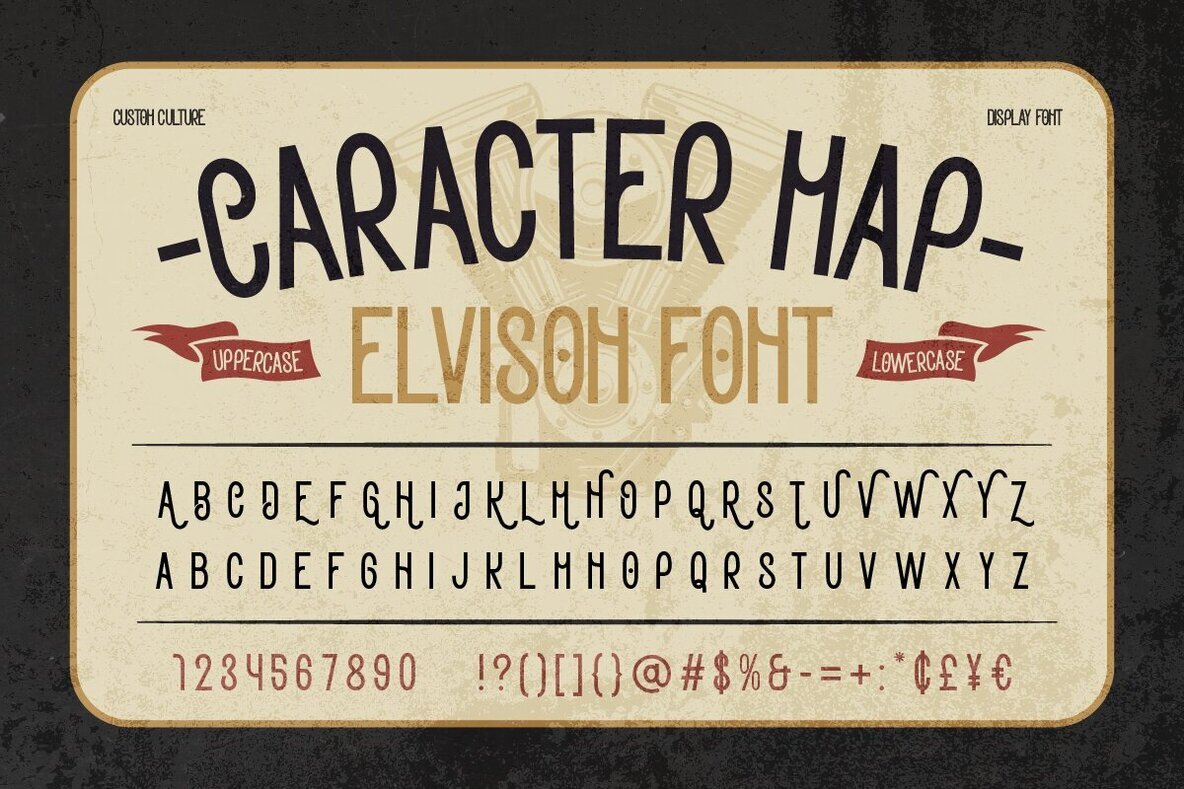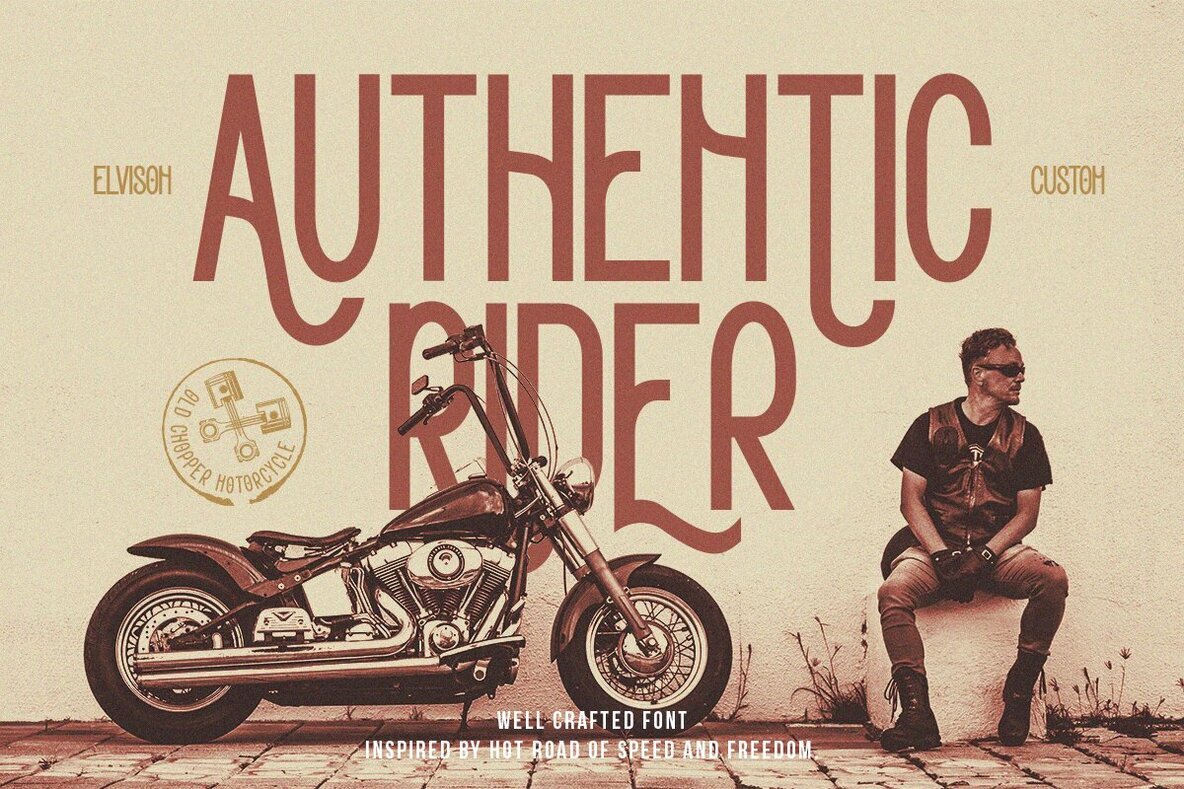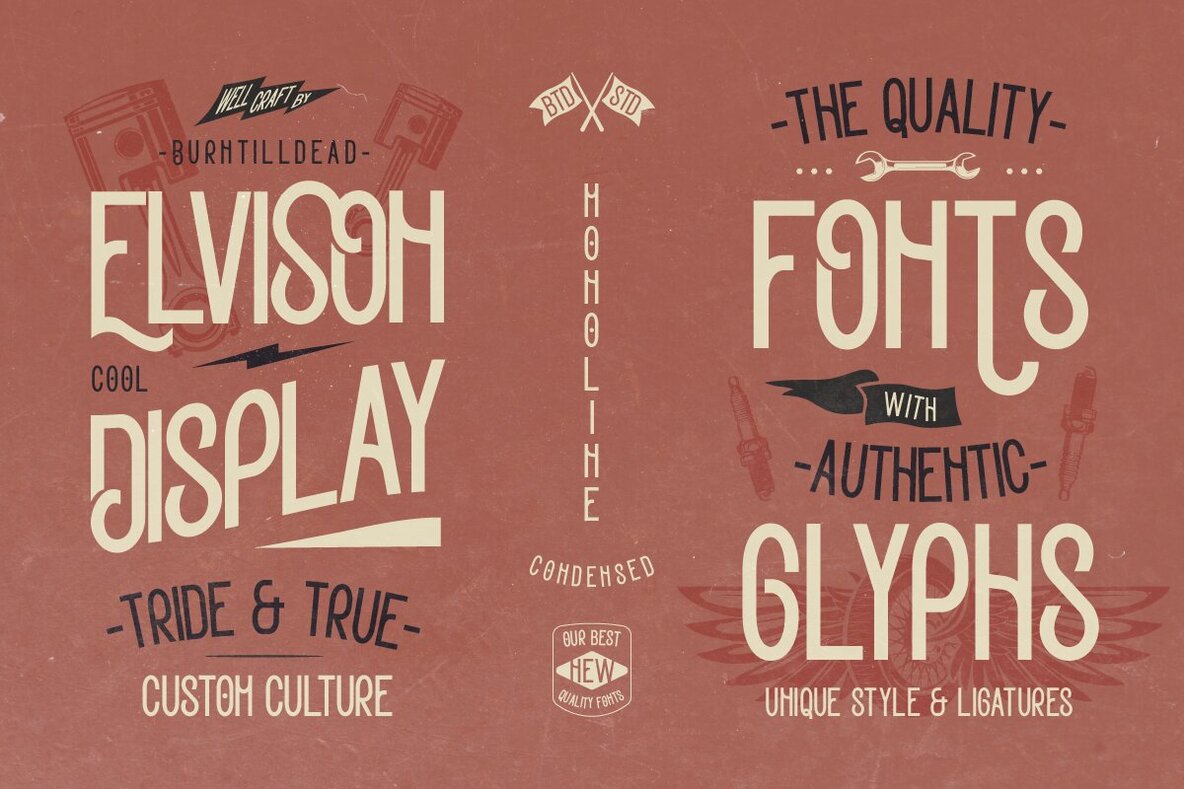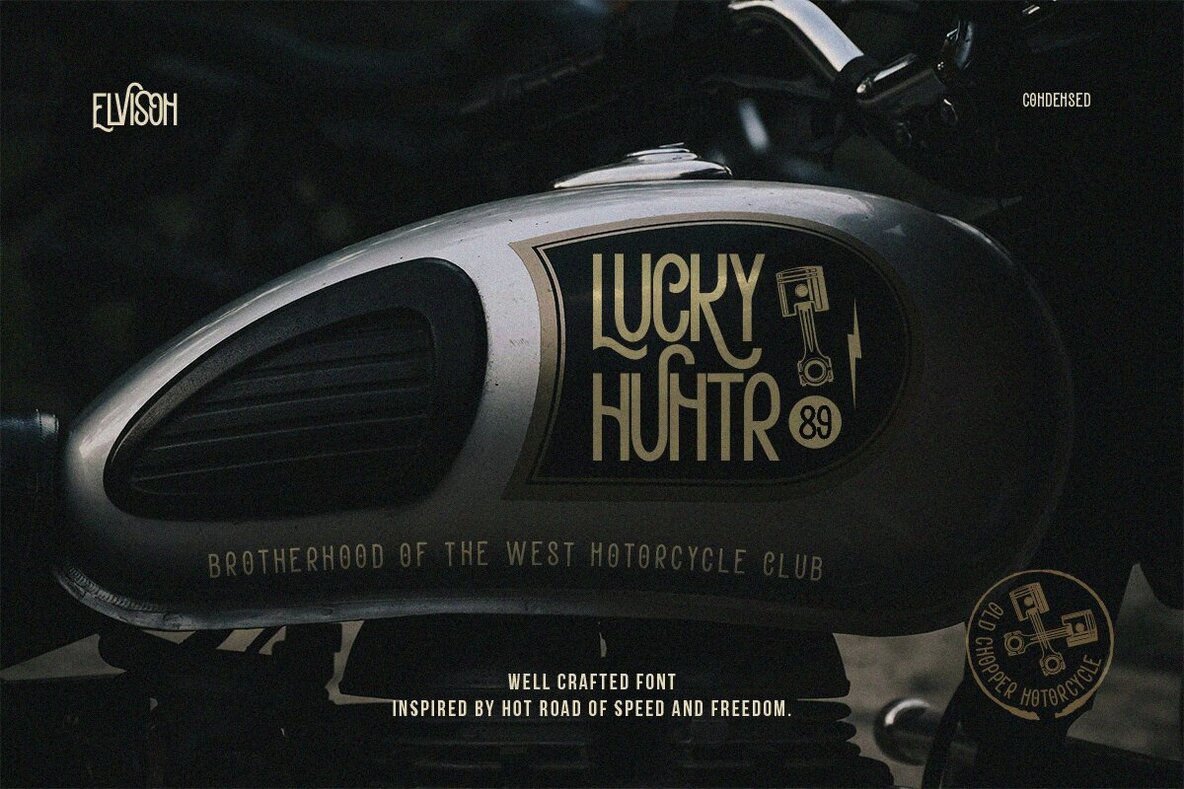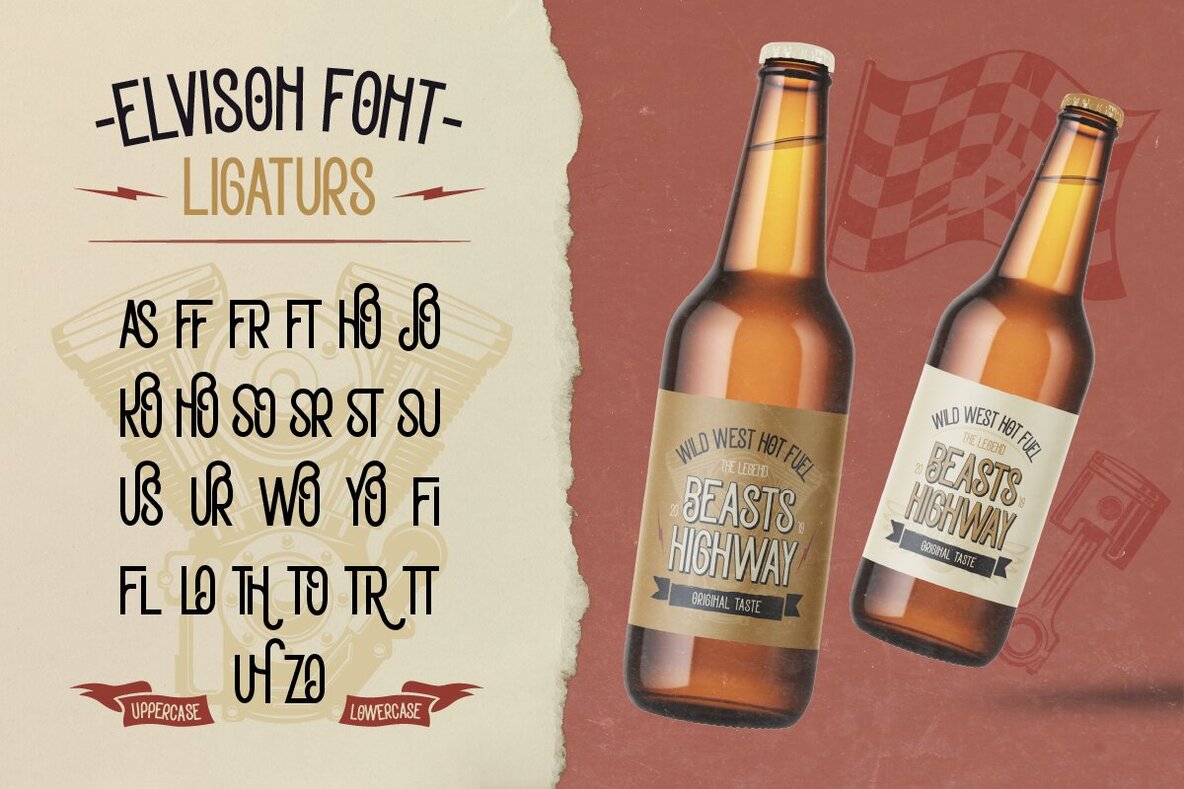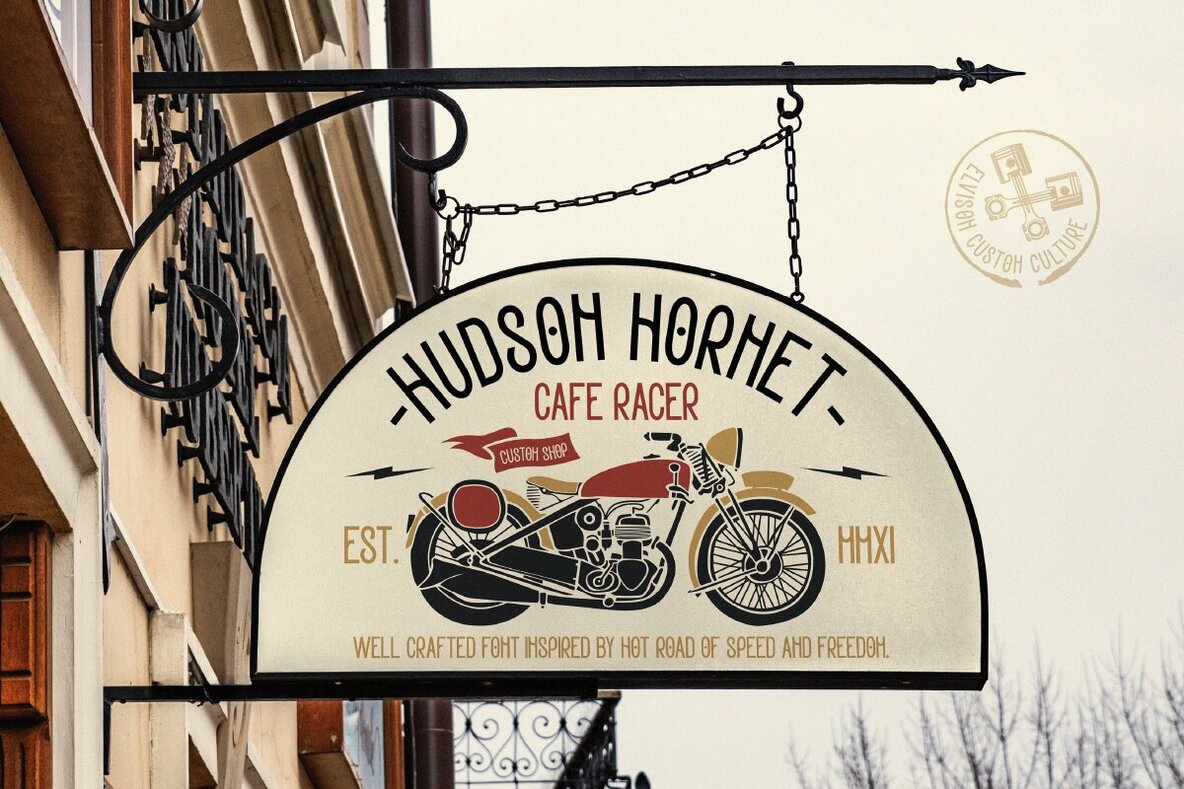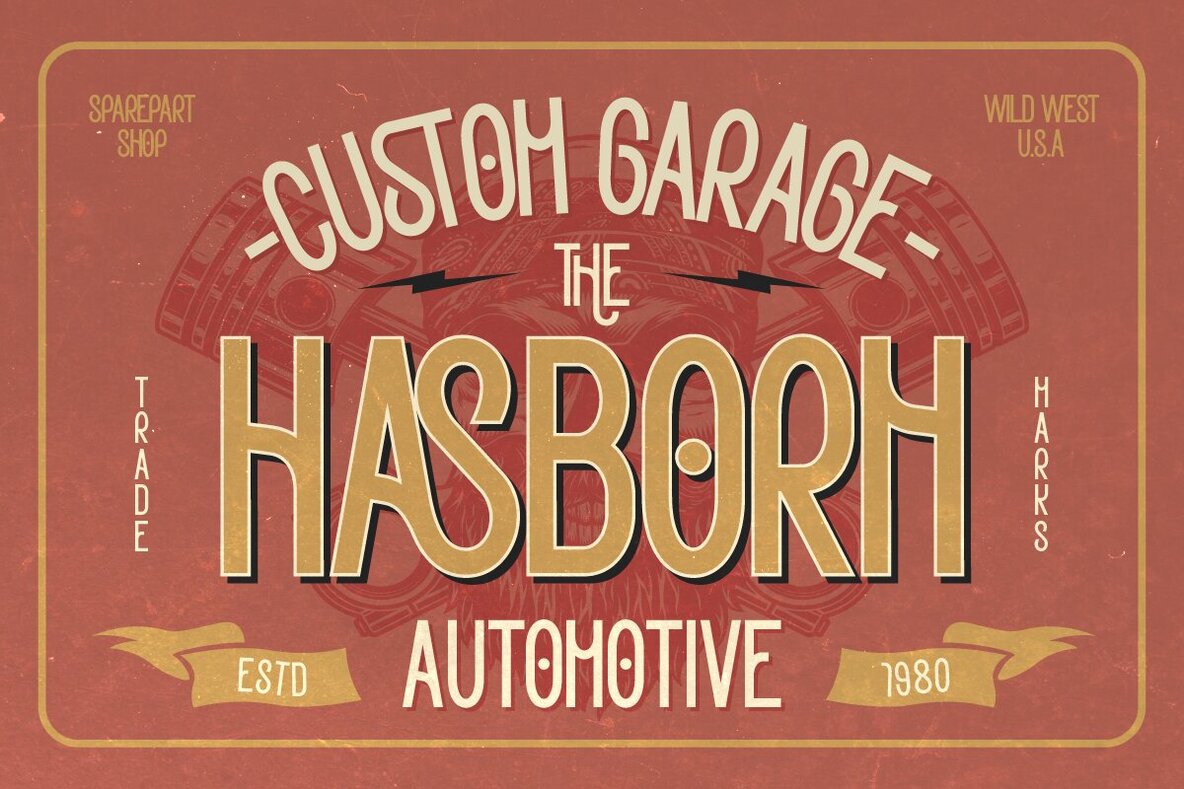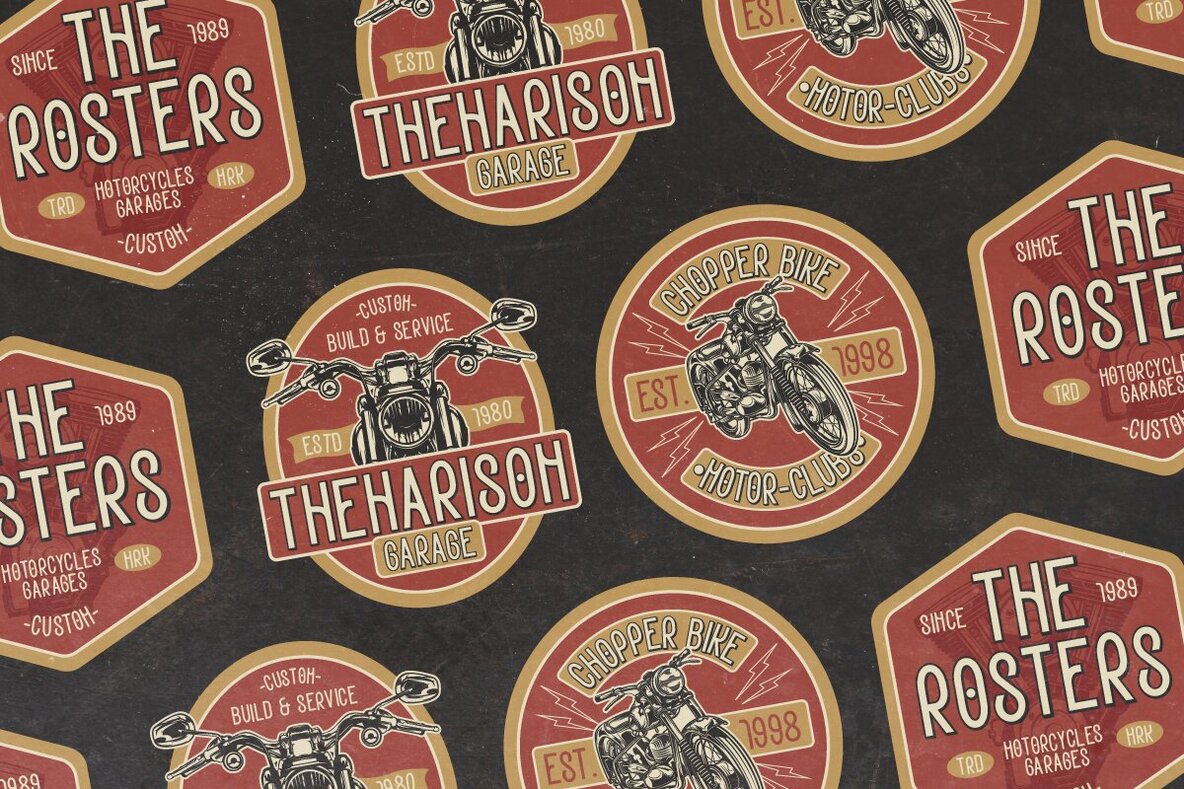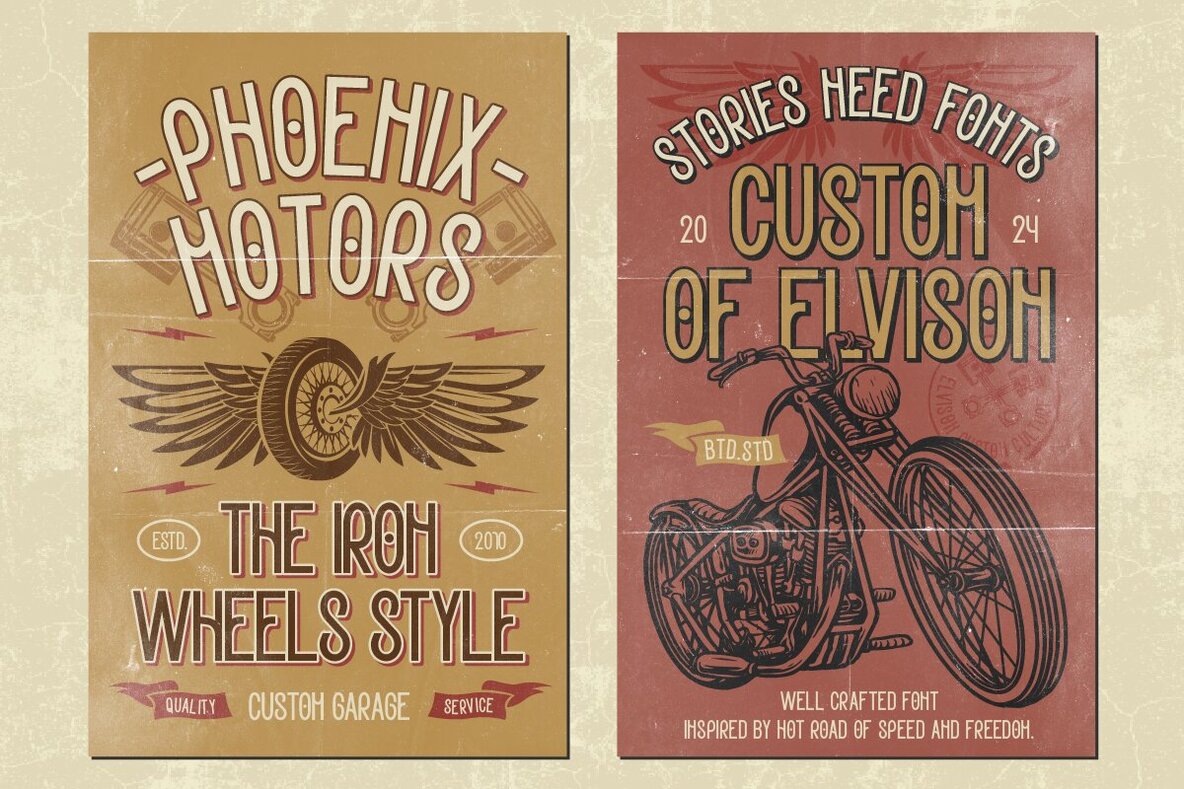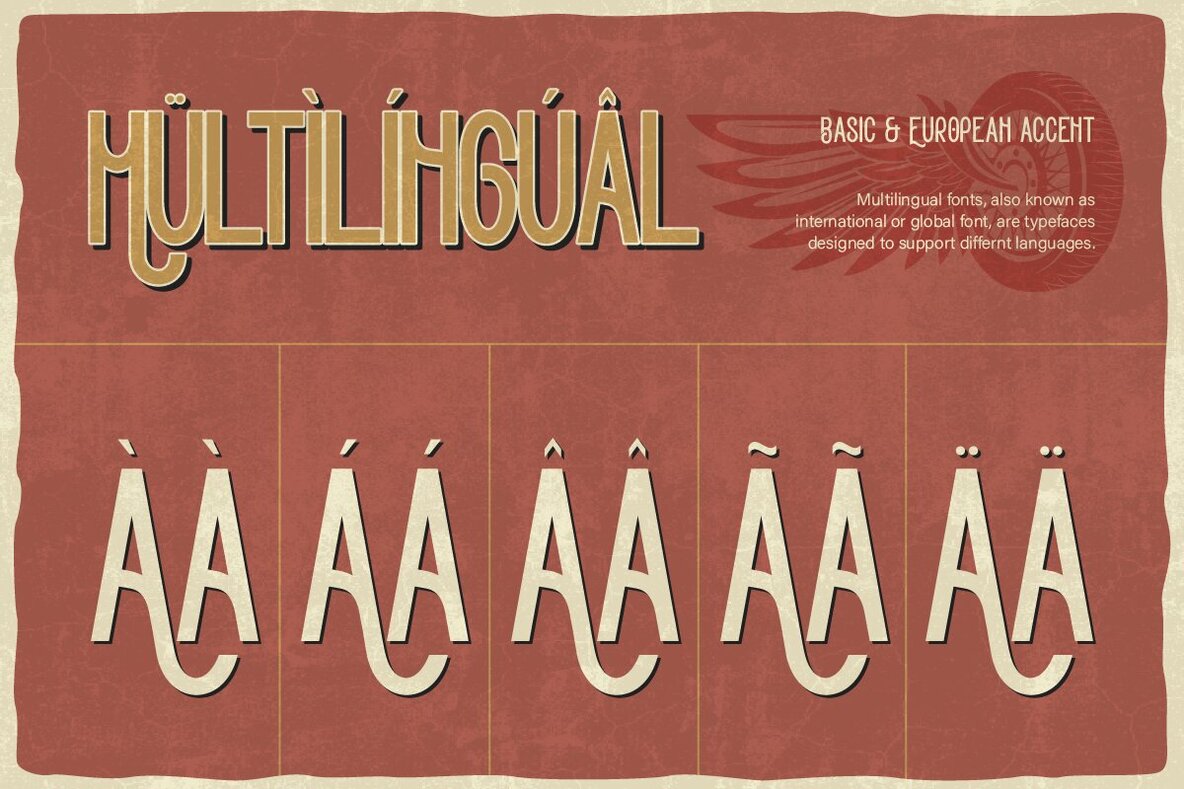
Elvison Font
Elvison
Elvison is a custom font inspired by the classic American design ethos, capturing a blend of vintage, nostalgia, and retro styles with a touch of art deco and grunge. Its condensed monoline style, complete with unique ligatures, brings a sense of custom culture and classic charm. With multilingual support, Elvison is perfect for international projects.
Ideal for a variety of creative applications, Elvison fits seamlessly into branding, poster design, social media graphics, and more. This font also complements niche markets like automotive, sports, barbershops, tattoo parlors, and music album covers. Key features include an all-caps A-Z set, numbers, punctuation, ligatures, and a comprehensive character map, providing designers with diverse options for their projects.